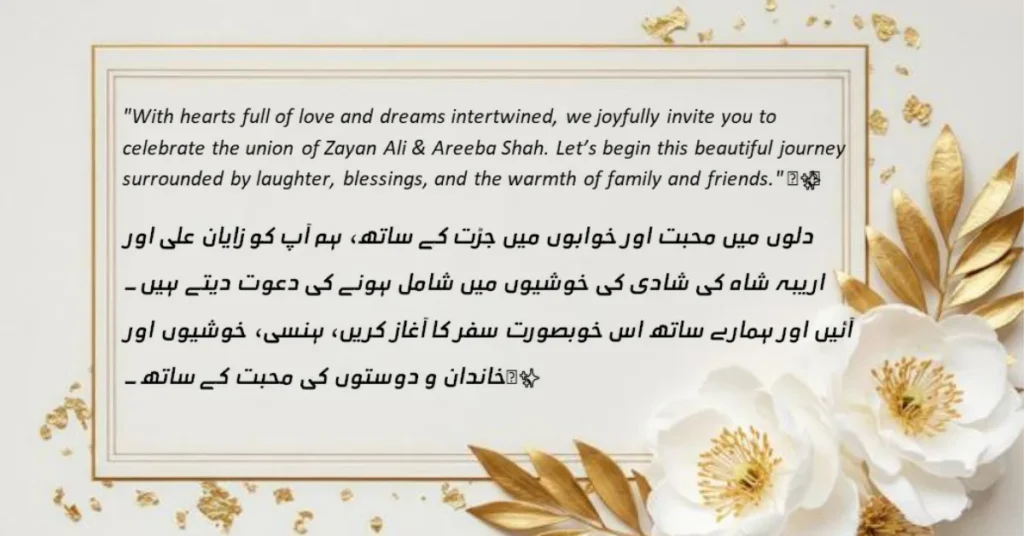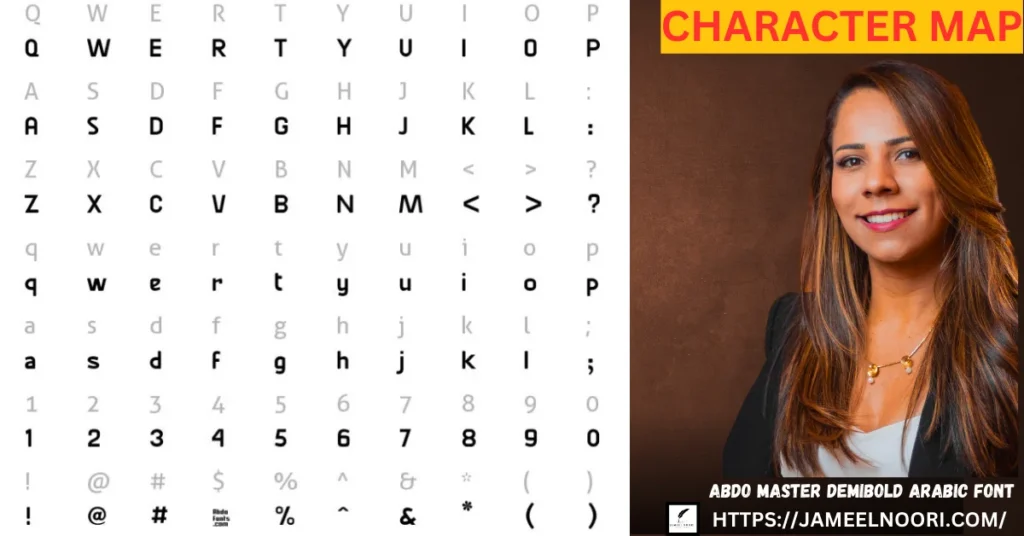
If you’ve ever admired elegant wedding cards, eye-catching certificates, decorative posters, or bold calligraphic logos, chances are you’ve already seen Abdo Master DemiBold Font in action. This font has quietly become a favorite among designers who want a strong yet graceful calligraphy style that instantly adds personality and class to any design.
Designers love Abdo Master DemiBold because it balances bold strokes with traditional calligraphic flow, making it perfect for both artistic and semi-formal projects. Whether you’re a branding expert, a graphic designer, or a typography lover, this guide will walk you through everything you need to know—from its history and features to best use cases, licensing, and safe download options.
What Is Abdo Master DemiBold Font?
Abdo Master DemiBold is a calligraphy-style TrueType font known for its decorative elegance and bold personality. It blends traditional handwritten aesthetics with modern digital clarity, making it suitable for both print and digital designs.
Font Overview
• Font Category: Calligraphy / Decorative
• Style: DemiBold (thicker strokes, strong presence)
• Personality: Elegant, expressive, artistic
Key Characteristics
• Letter Style: Flowing calligraphic forms with bold weight
• Stroke Contrast: Medium-to-high contrast for visual impact
• Readability: Best for headlines and decorative text
• Decorative Features: Curved terminals, expressive letterforms
This font is commonly used where visual beauty matters more than long-form readability, such as titles, logos, and ceremonial designs.
Detailed character set of Abdo Master DemiBold Font for precise typography reference.
History of Abdo Master DemiBold Font
The Abdo Master DemiBold Font was designed as part of the Abdo Master font family, focusing on calligraphy-inspired typography suitable for cultural, formal, and artistic uses.
Background & Development
• Designer: Abdo Fonts (commonly credited in font libraries)
• Year of Creation: Early 2010s (approx.)
• Purpose: To provide a bold calligraphic font for decorative and formal designs
Rise in Popularity
Abdo Master DemiBold gained popularity on font-sharing platforms thanks to:
• Its strong visual presence
• Frequent use in certificates, invitations, and cultural designs
Even today, the font remains relevant because calligraphy styles never go out of fashion, especially in branding and ceremonial design work.
Key Features of Abdo Master DemiBold Font
1. Style & Inspiration
Abdo Master DemiBold draws inspiration from traditional calligraphy, combining ornamental curves with bold strokes. It feels classic yet powerful—ideal for designs that need authority and elegance at the same time.
2. Uppercase Design
The uppercase letters are visually dominant, making them perfect for:
• Titles
• Certificates
• Logos
• Headings
Each uppercase character is crafted to stand alone as a decorative element.
3. Lowercase Flow & Readability
Lowercase letters maintain smooth transitions and consistent flow, which helps when using short phrases or names. While not ideal for body text, they shine in short decorative lines.
4. Stroke Contrast & Aesthetic Appeal
The DemiBold weight provides:
• Strong contrast
• Clear outlines
• Excellent print clarity
This makes the font especially effective for high-resolution print projects.
Where to Use Abdo Master DemiBold Font
1. Wedding Invitations
Perfect for:
• Names of the couple
• Event titles
• Decorative headings
Wedding card designed with Abdo Master DemiBold Font for elegant names and details
Beautiful wedding card example using Abdo Master DemiBold Font for text, names, and quotes.
2. Certificates & Diplomas
Its formal calligraphy style makes it ideal for:
• Award certificates
Is Abdo Master DemiBold Font good for logos?
Absolutely. Its bold calligraphy style makes it ideal for luxury and cultural logos.